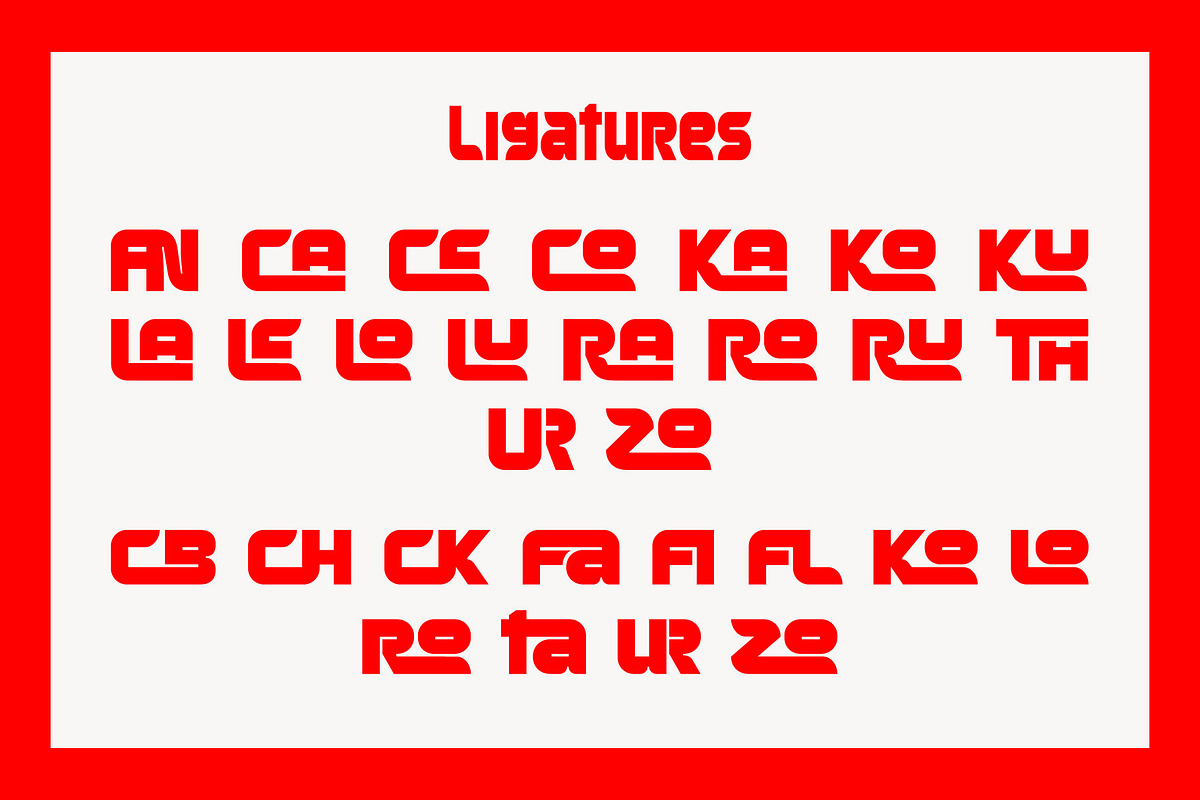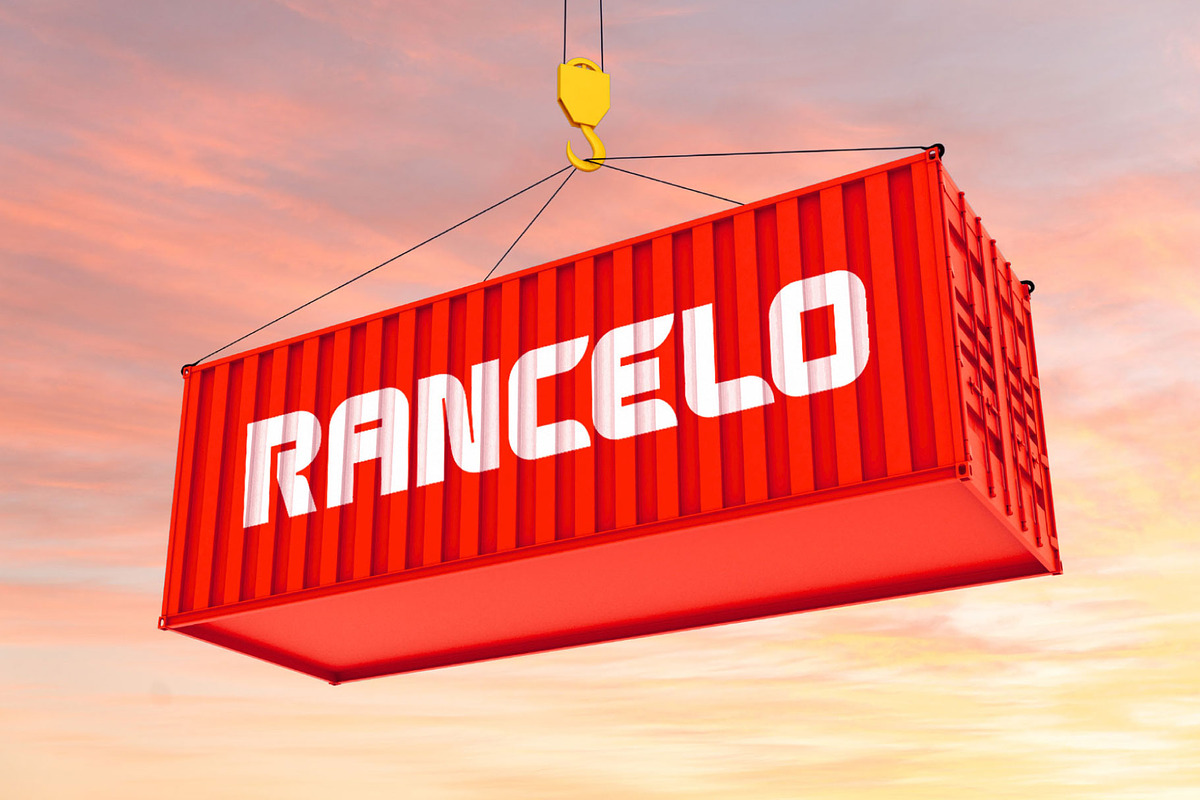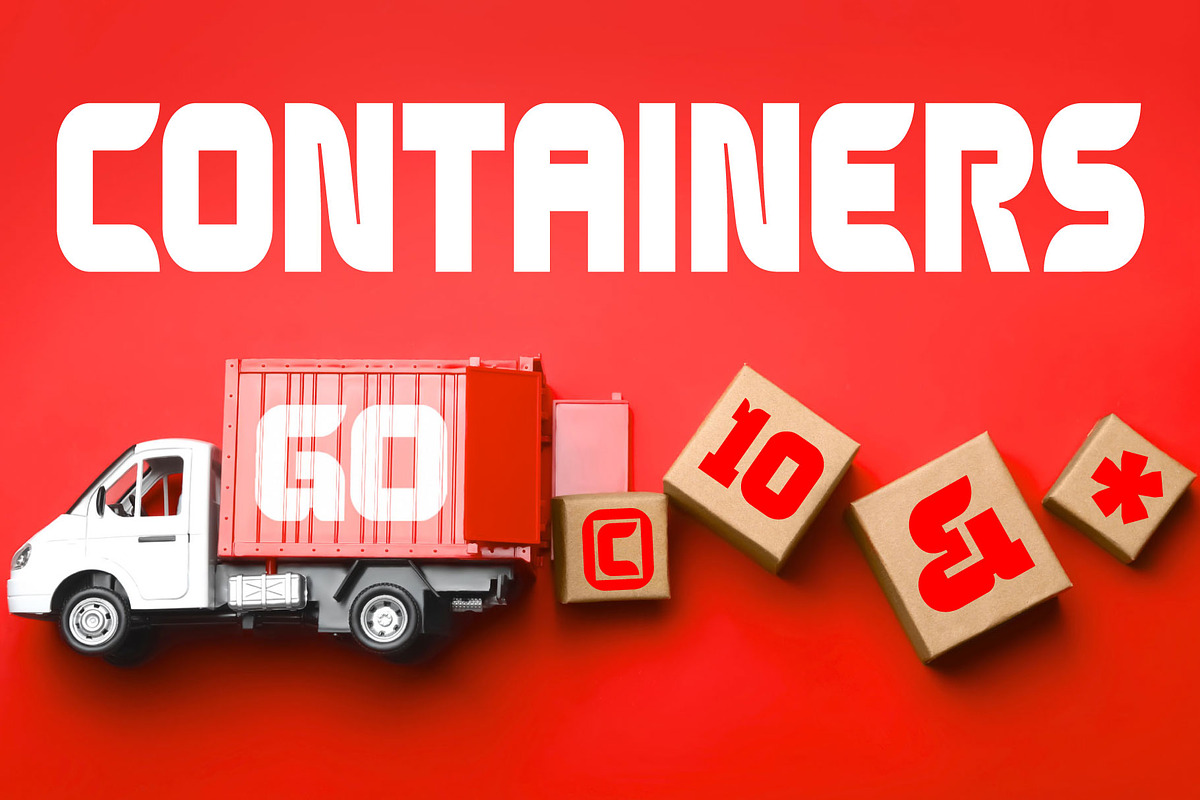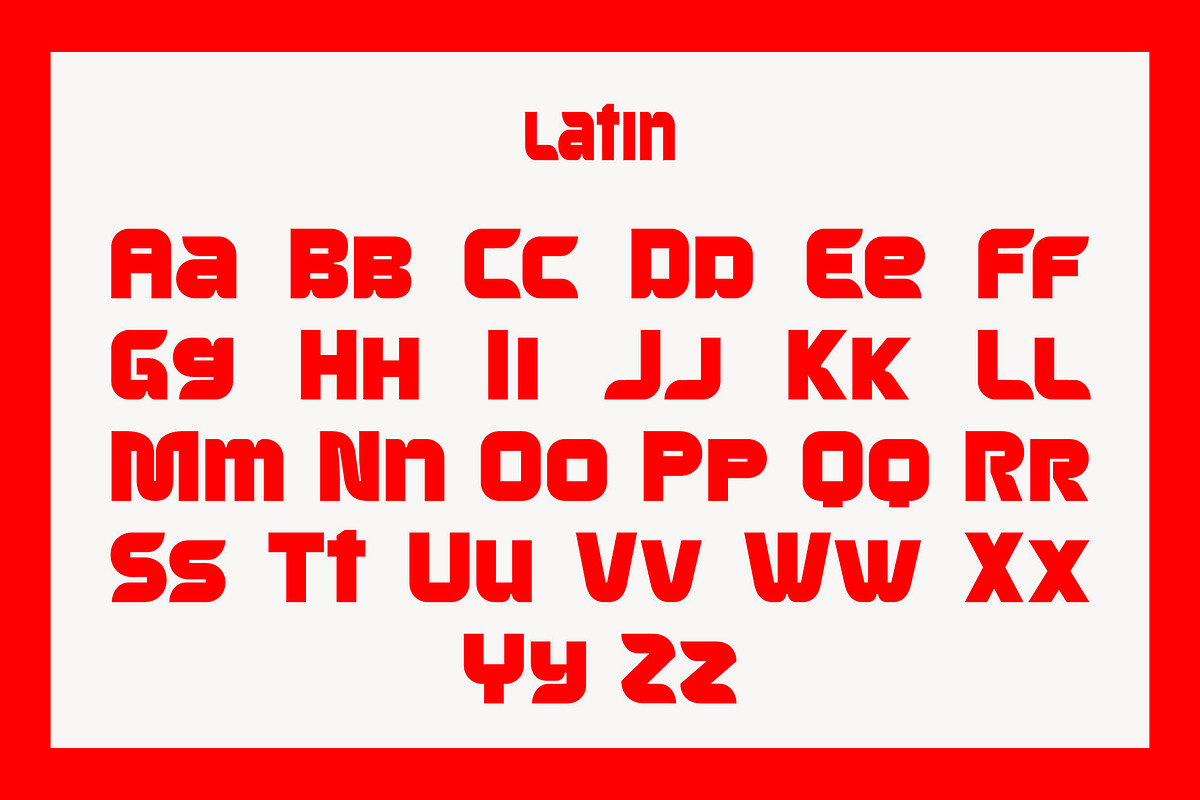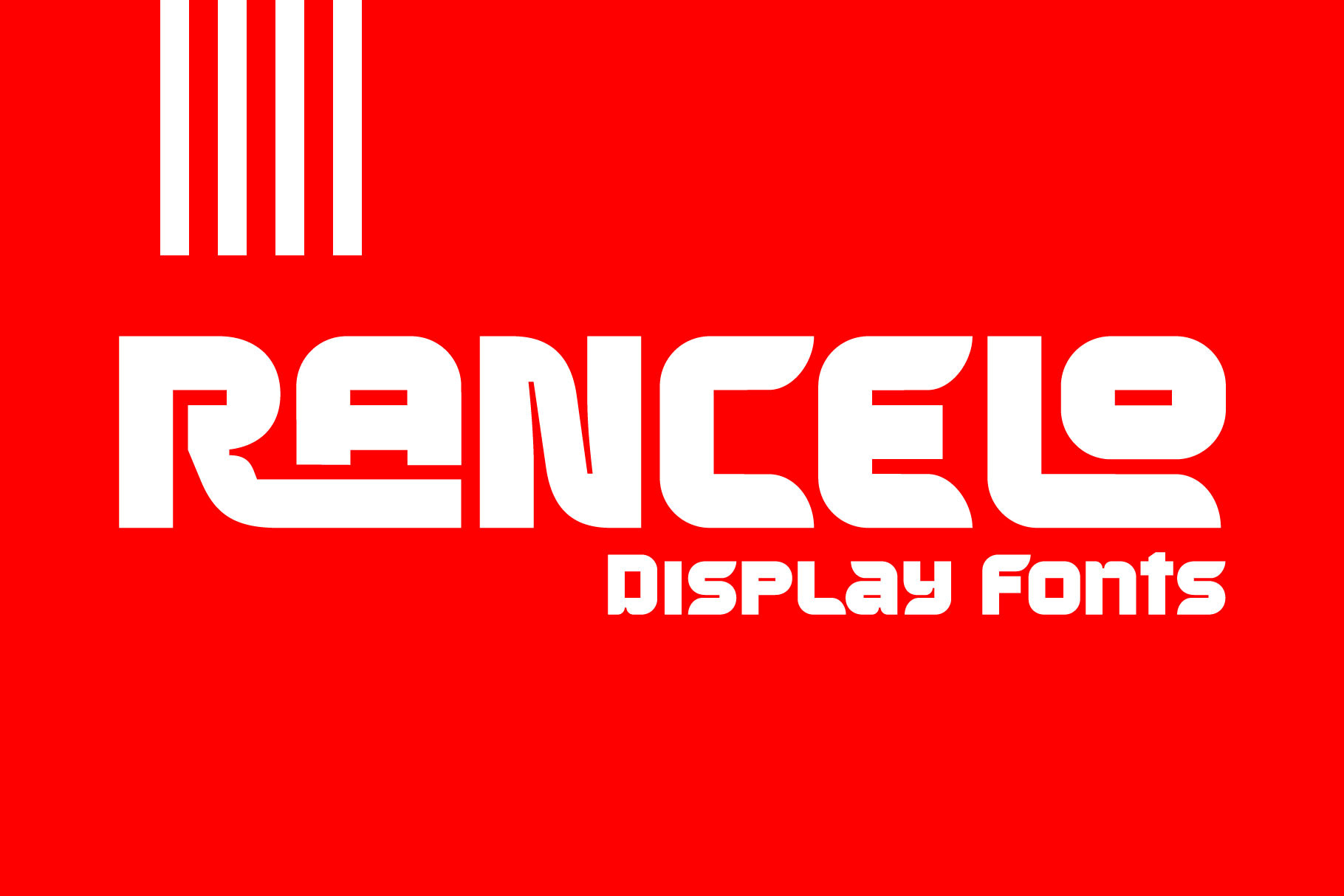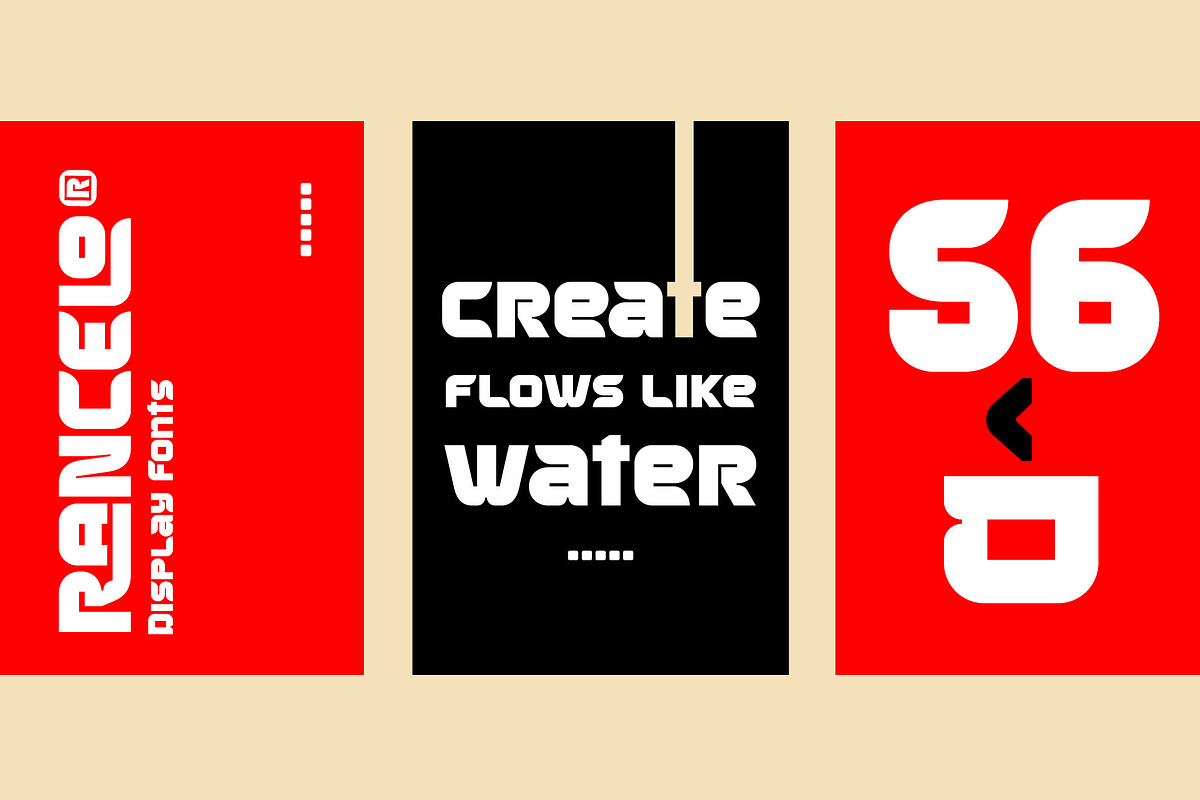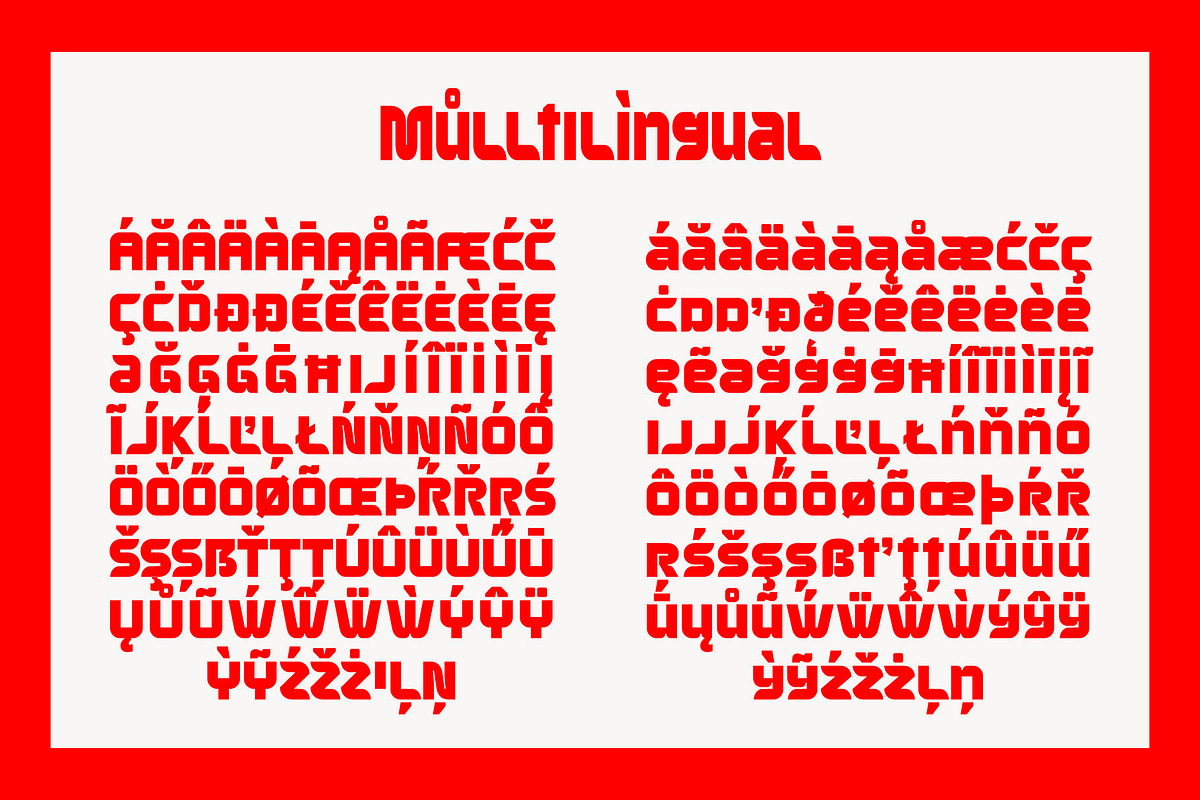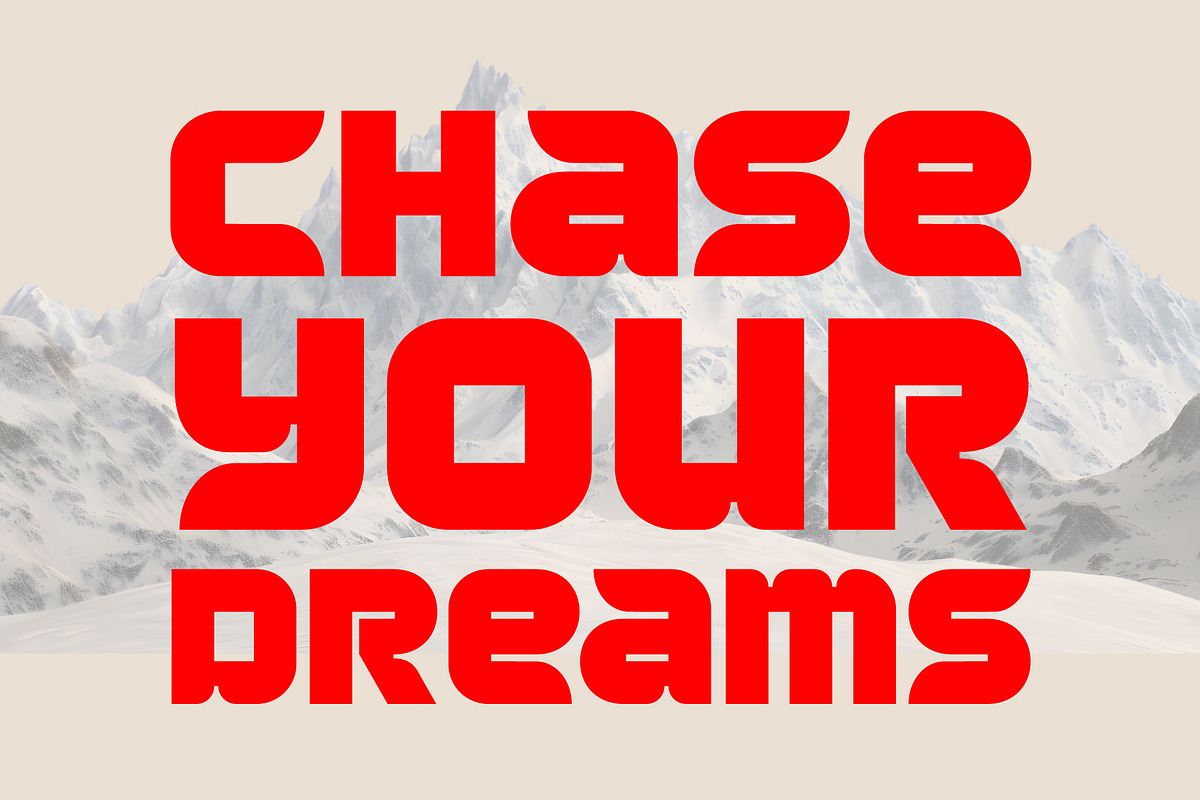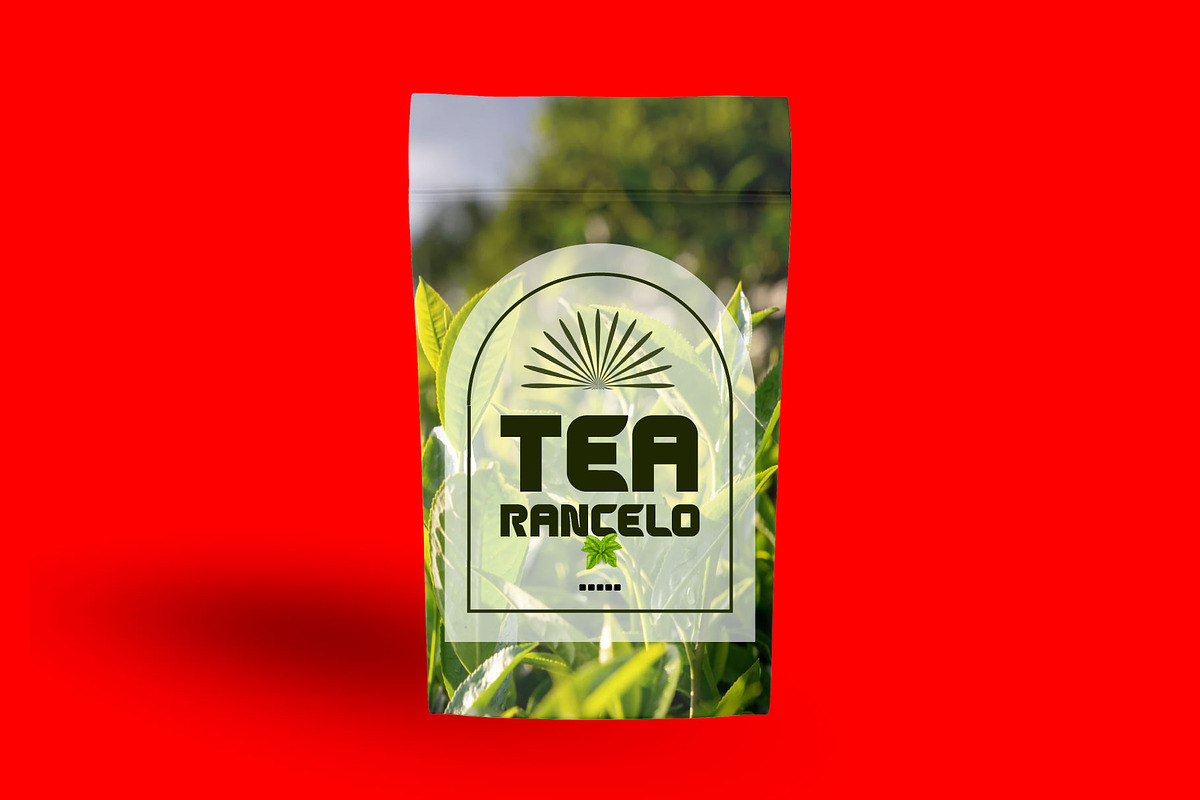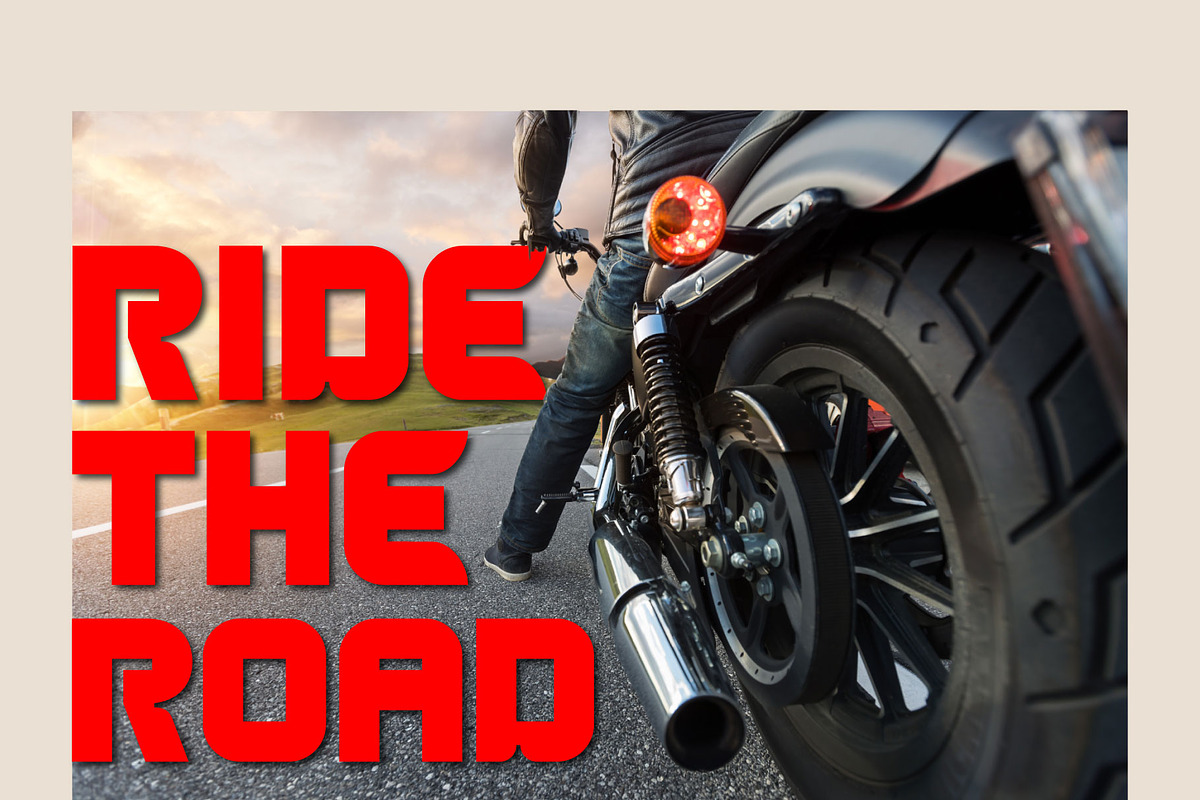
RANCELO - BOLD DISPLAY FONT
Rancelo is a powerful and striking Display Fonts typeface designed to make a memorable impact . With its bold, futuristic curves and distinct style, Rancelo is perfect for projects that demand attention and a modern, creative edge.
Key Features Bold & Modern Aesthetic: The font features solid forms and smooth, unique terminals, making it instantly recognizable and highly suitable for modern design. Extensive Character Set: Includes Latin characters (uppercase and lowercase) , numerals, and punctuation marks . Unique Ligatures: Comes with a variety of stylish ligatures that add a custom-look feel to your text . Multilingual Support: Supports a wide range of international characters for global projects .
Rancelo is an excellent choice for branding and design work, including: